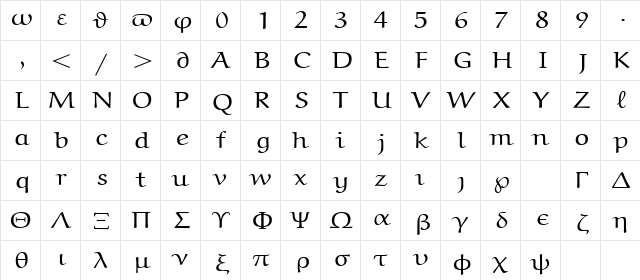
eurm6 Regular
Design Context for eurm6 Typeface
eurm6 offers clean, dependable letterforms without strong stylistic allegiance, making it a practical choice for designers who need flexibility.